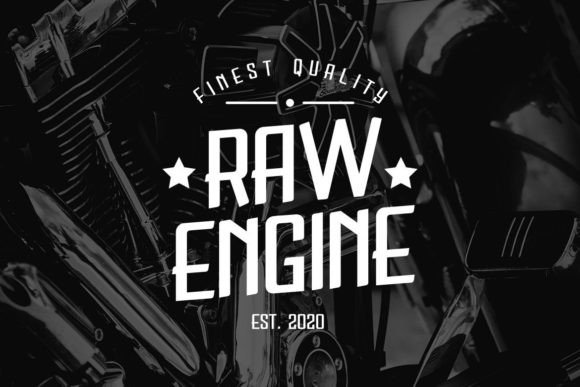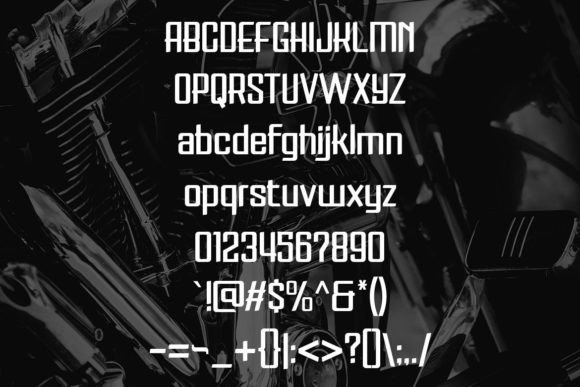
Introduction to Saito Font
With a manly vibe with strong characters in every letter, Saito is defined as a masculine font for your design needs.
As easy as starting the engine for your vintage motorcycle branding tools, and of course other concepts that need a strong masculine touch, Saito is an easy way to go out .